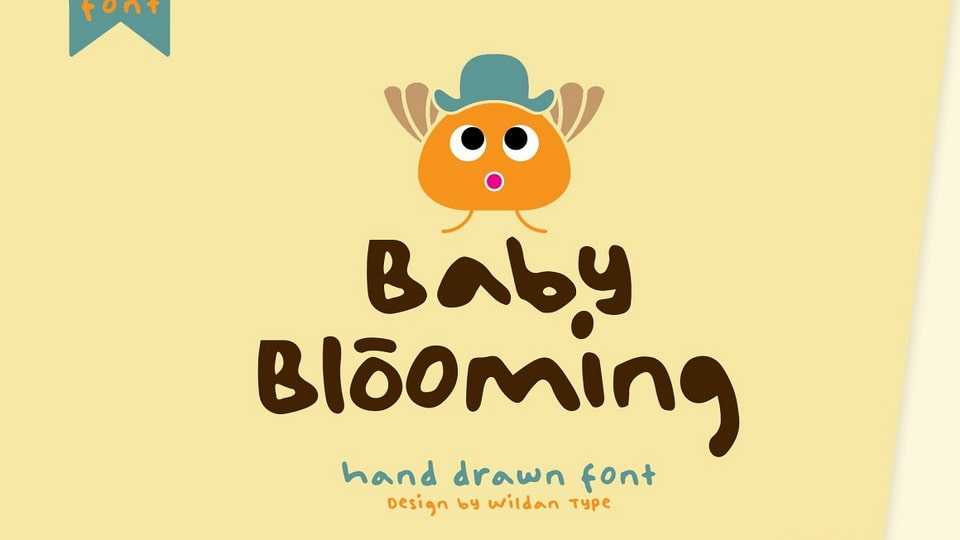
Download Baby Blooming font, a playfully display typeface made from hand drawn ideas in typeface. Baby Blooming is so perfect for invitations, fashion, branding, label, hand drawn or logotype.
Designer: Wildan Type